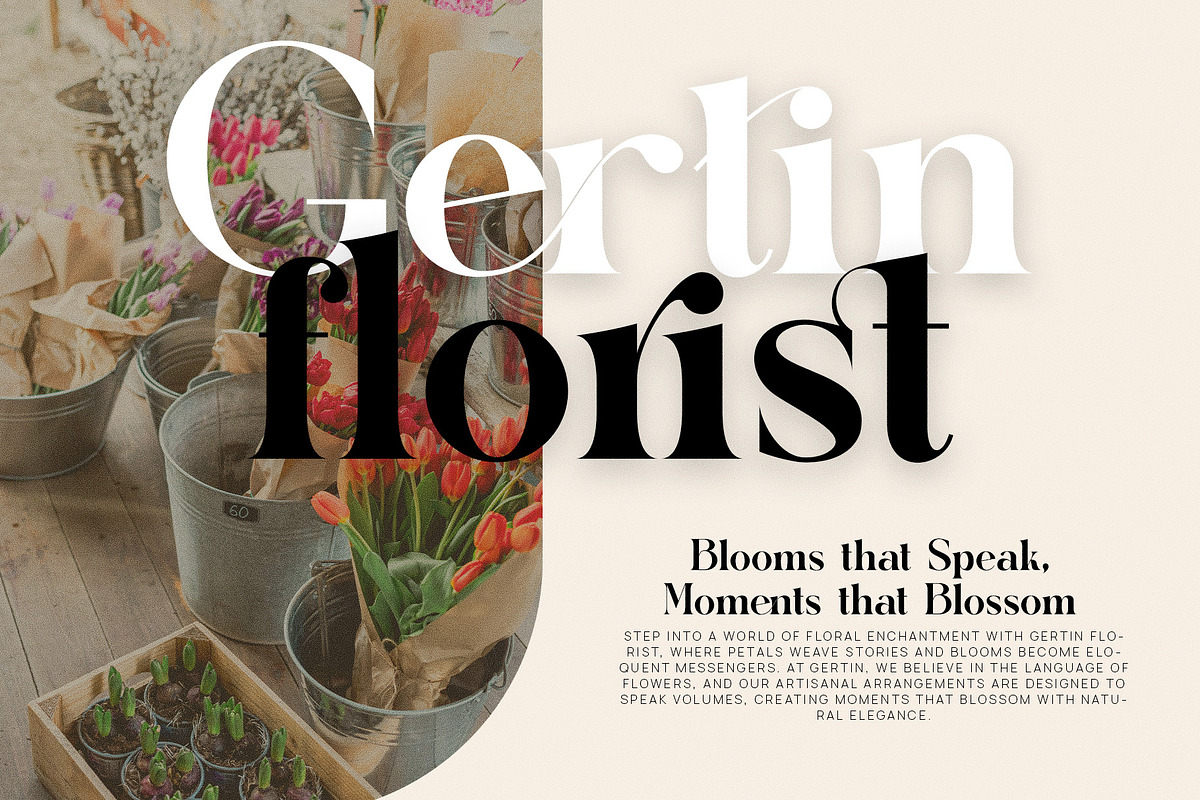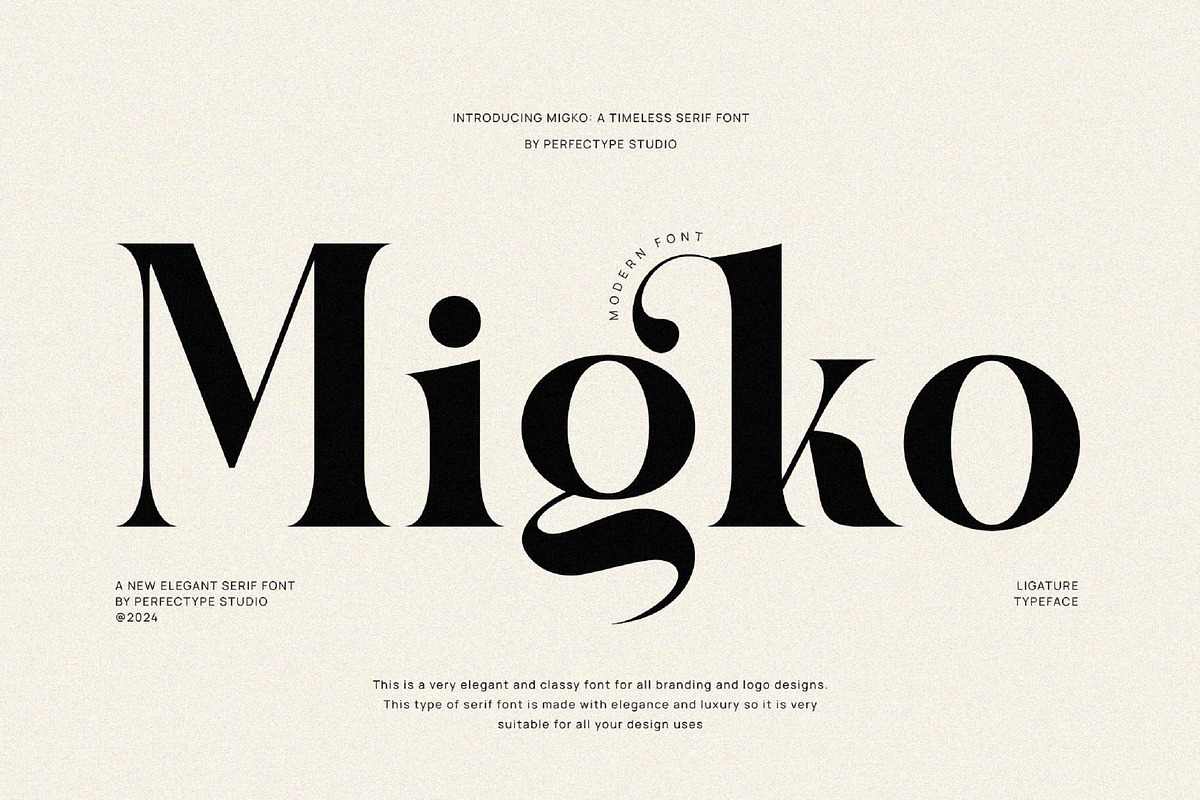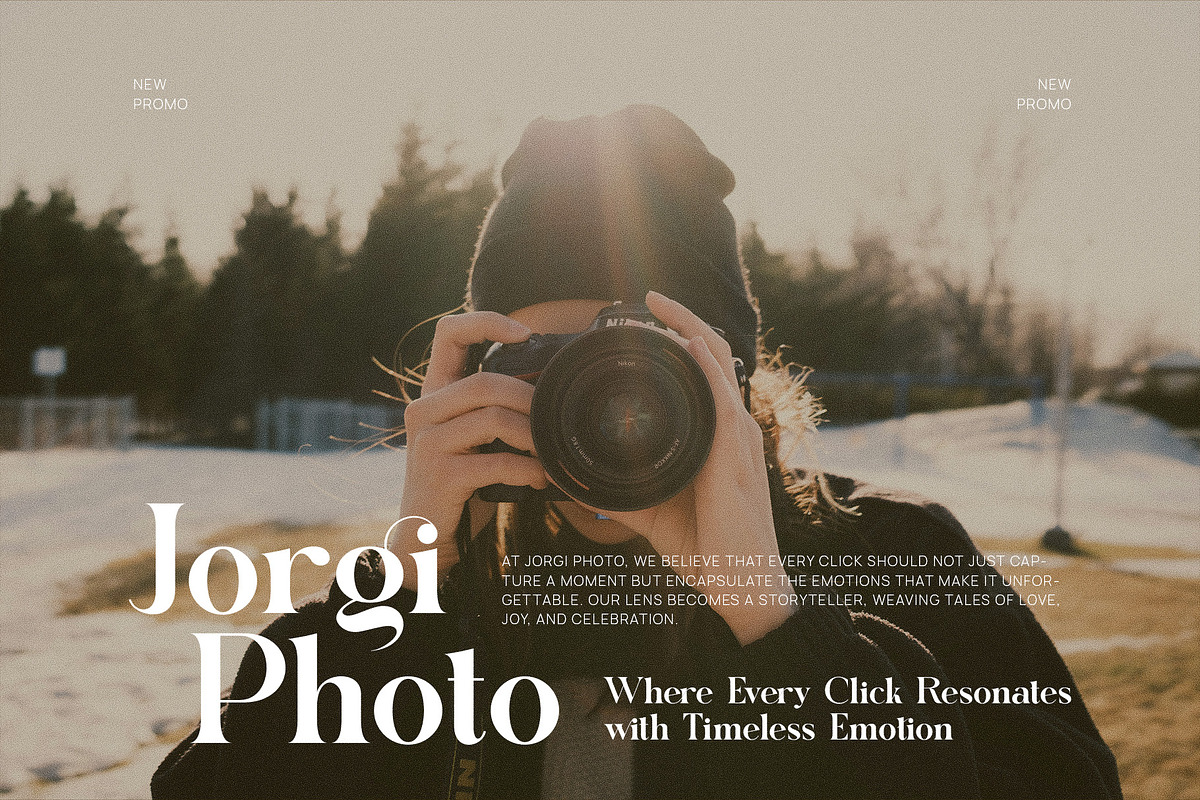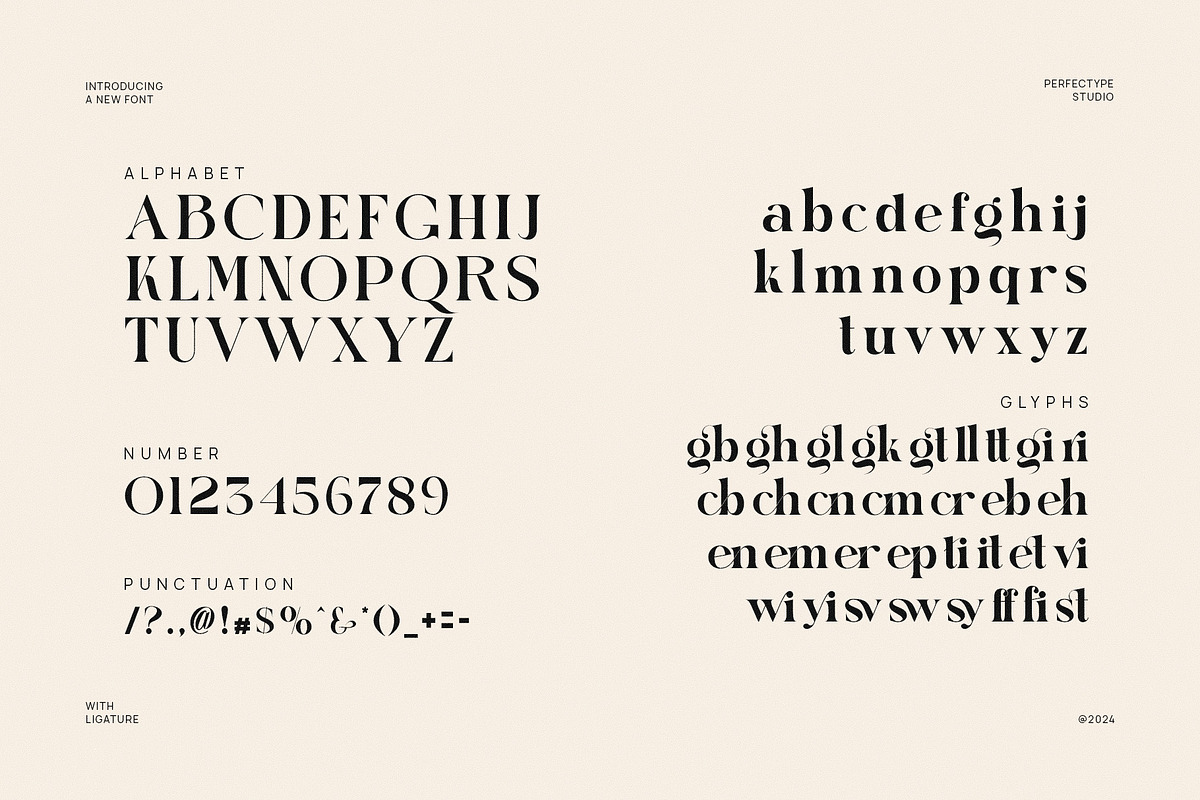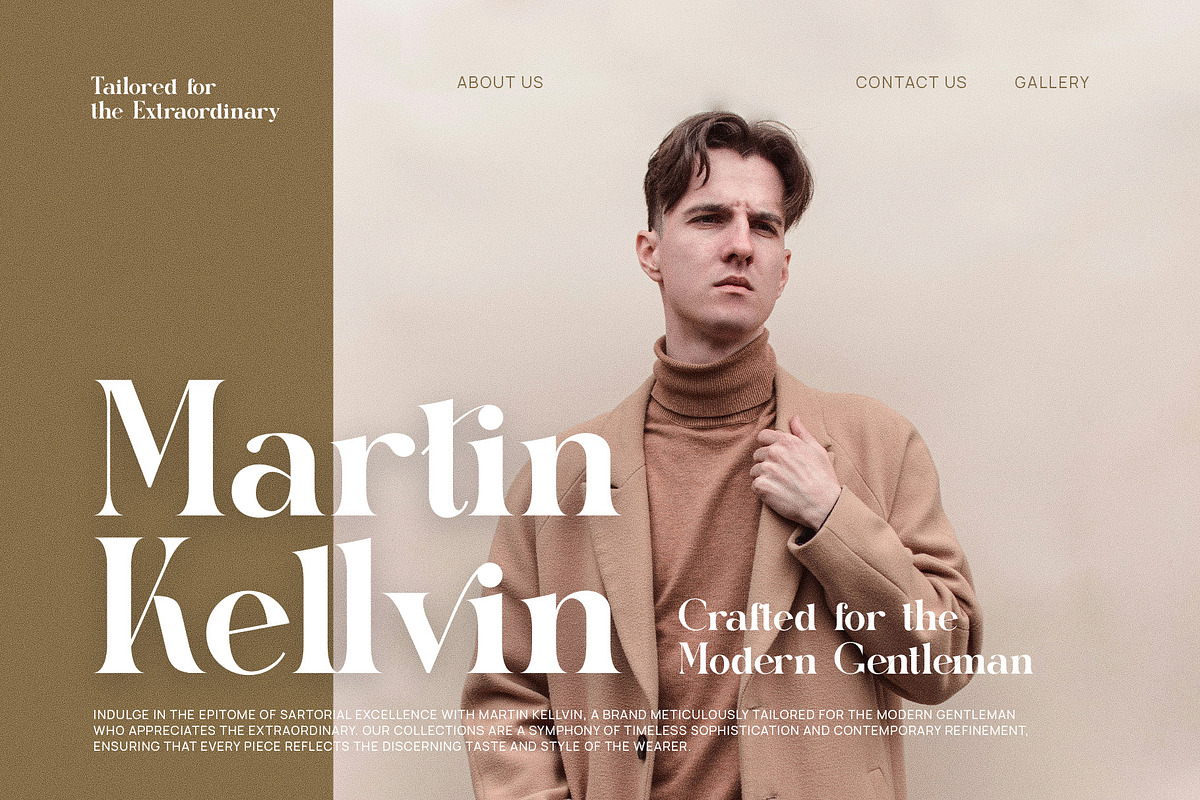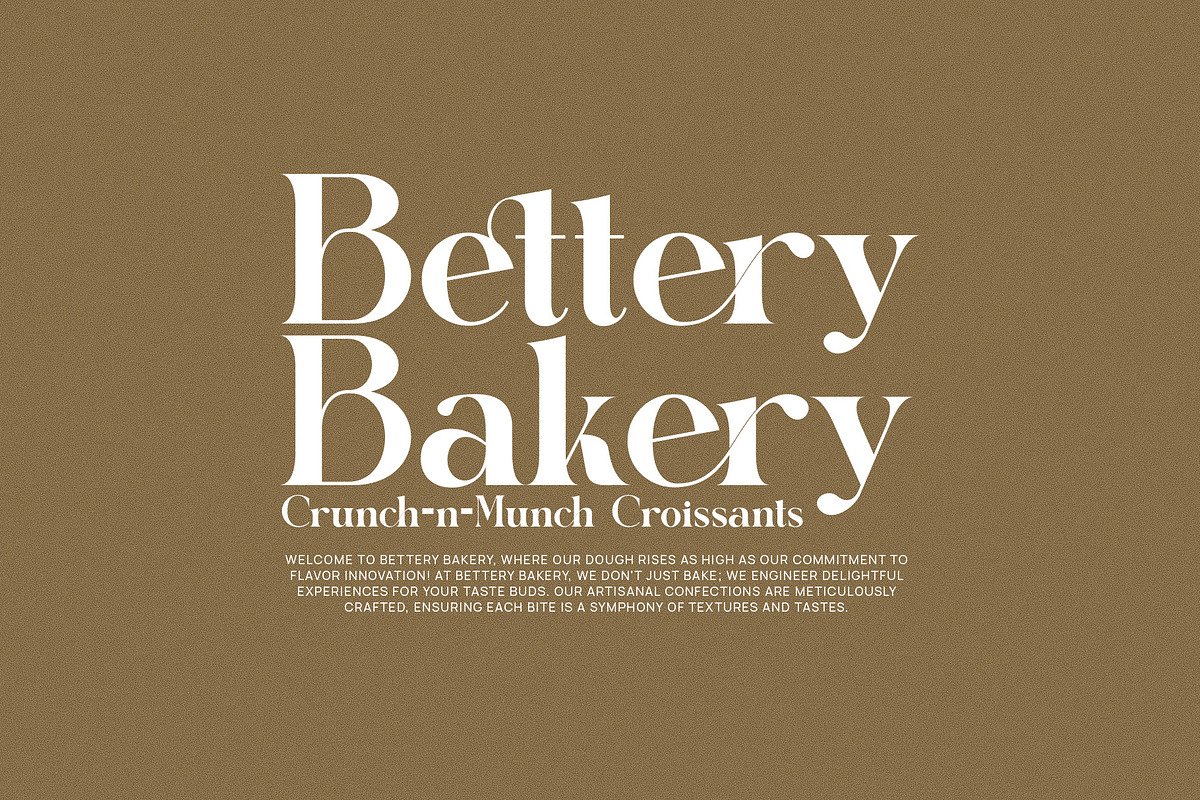
Migko Modern Ligature Serif Font
This is a very elegant and classy font for all branding and logo designs This type of serif font is created with elegance and luxury so it is perfect for all your design needs. This font is equipped with many beautiful and unique ligature and alternate options. This type of font is very suitable for your various needs such as branding projects, logos, social media posts, advertisements, labels, product packaging, photography, wedding designs, watermarks, invitation product designs, stationery, and any project, made at a high price. readability level.